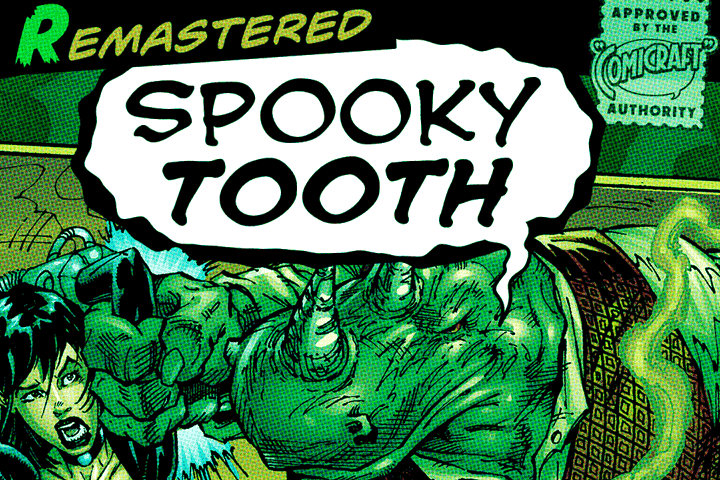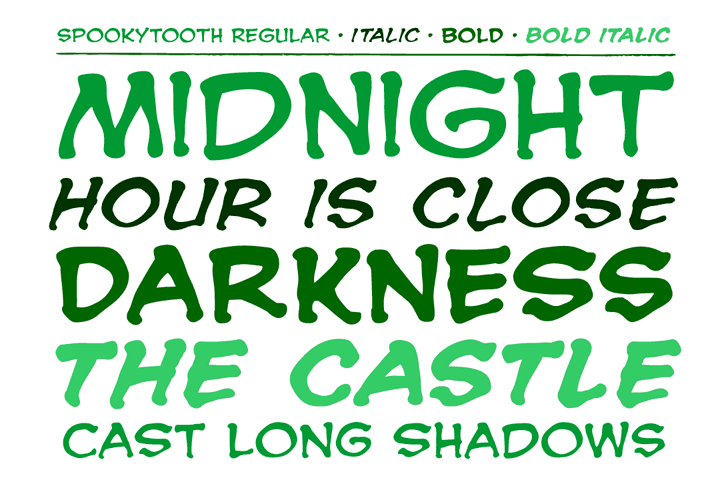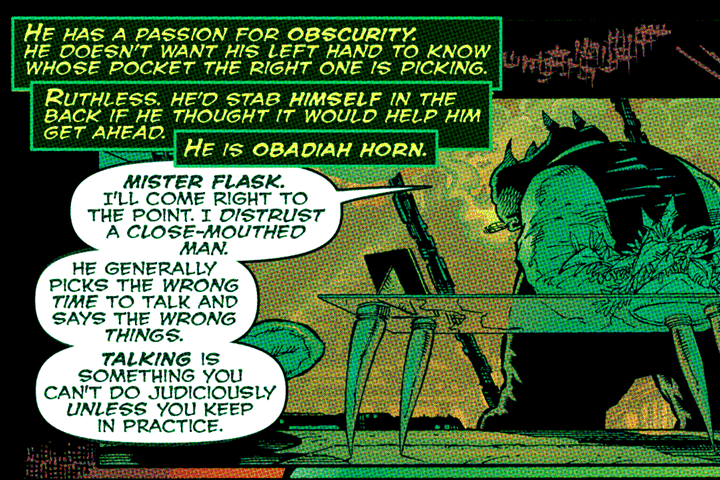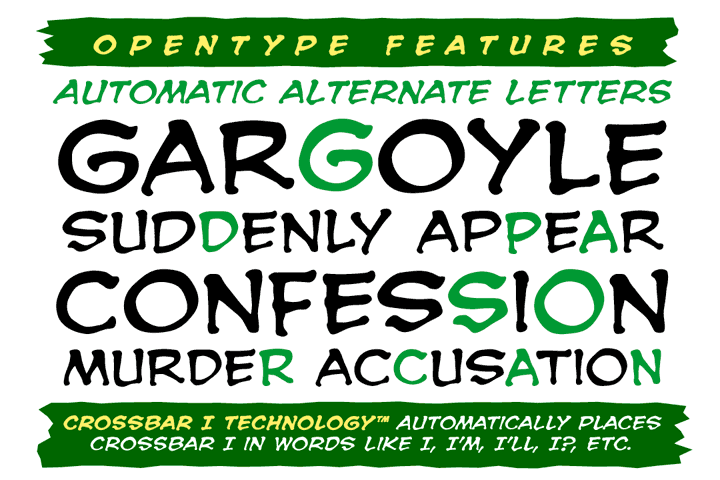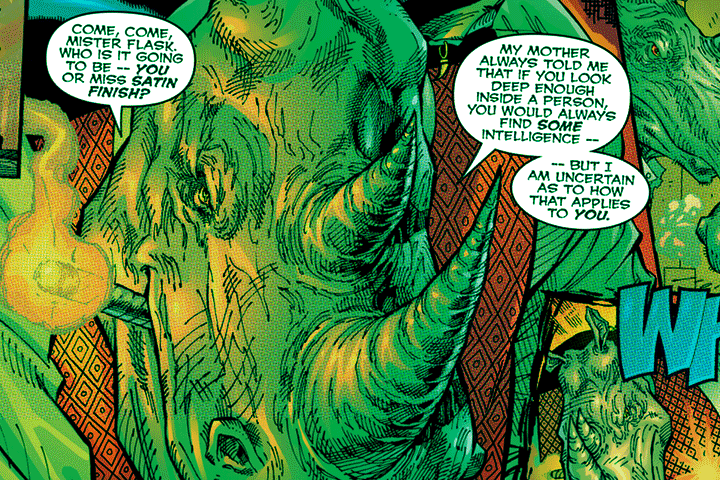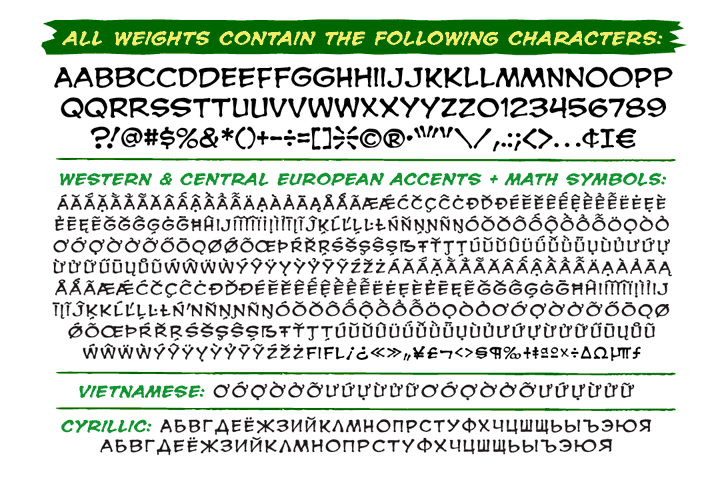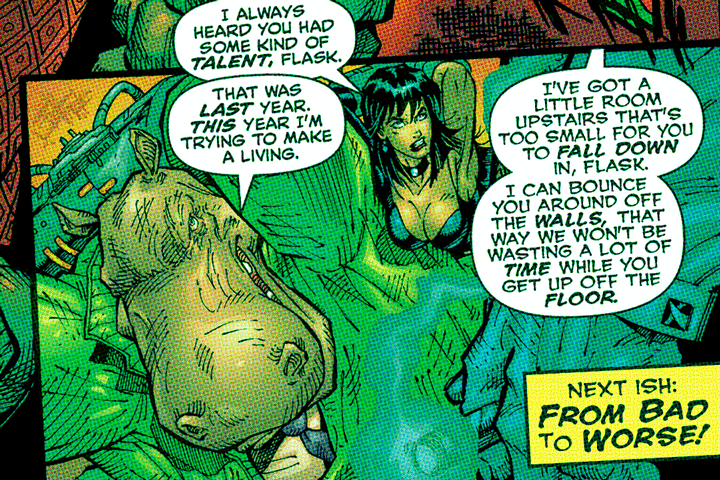
Sink your teeth into the World of Horror! SPOOKYTOOTH is sharp enough to penetrate even the most stubborn necks and has proven unnerving enough to make Ghost Rider, Deadpool, the Confessor and even ELEPHANTMEN’s Obadiah Horn sound both sinister and nefarious!
Remastered Spookytooth includes a new Bold weight, automatic alternate letters, improved spacing & kerning, additional European, Vietnamese & Cyrillic language support, and Crossbar I Technology™